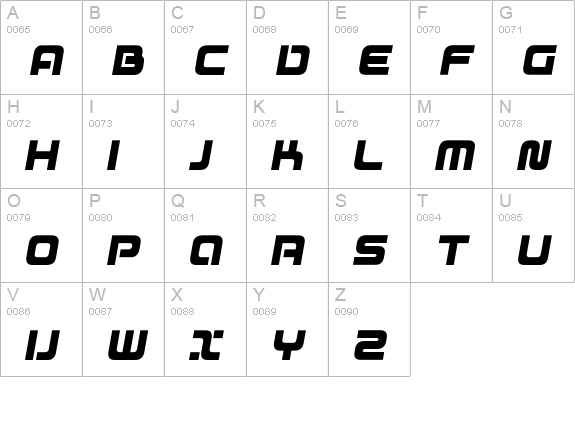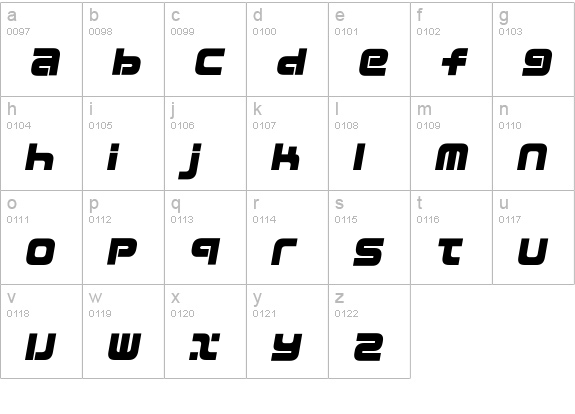
D3 Mouldism Round Italic Font Details
D3 Mouldism Round Italic is a distinctive, italic variant in the D3 typeface family \xE2\x80\x94 well suited to design and typography projects.
Introducing D3 Mouldism Round Italic font, a captivating and versatile typeface that exudes elegance and sophistication. This exquisite font is sure to leave a lasting impression with its unique and distinctive design. D3 Mouldism Round Italic font boasts a seamless blend of round and italic elements, resulting in a harmonious and visually pleasing aesthetic. Its gentle curves and slanted strokes add a touch of dynamism, making it perfect for projects that require a modern and stylish look. With its wide range of applications, D3 Mouldism Round Italic font can effortlessly elevate any design project. Whether it's for branding, advertising, editorial, or web design, this font will bring a sense of professionalism and class to your work. What sets D3 Mouldism Round Italic font apart is its versatility and adaptability. It can effortlessly fit into various design styles, from minimalist and contemporary to bold and expressive. This font truly has the ability to enhance any creative vision and bring it to life. And the best part? D3 Mouldism Round Italic font is free! Yes, you read that right. This incredible font is freely available to download at FontsMarket.com. Now, you can add a touch of elegance to your projects without breaking the bank. So why wait? Download D3 Mouldism Round Italic font today and unlock a world of endless design possibilities. Let your creativity soar as you explore the boundless potential of this remarkable typeface. Elevate your designs and make a lasting impression with D3 Mouldism Round Italic font.